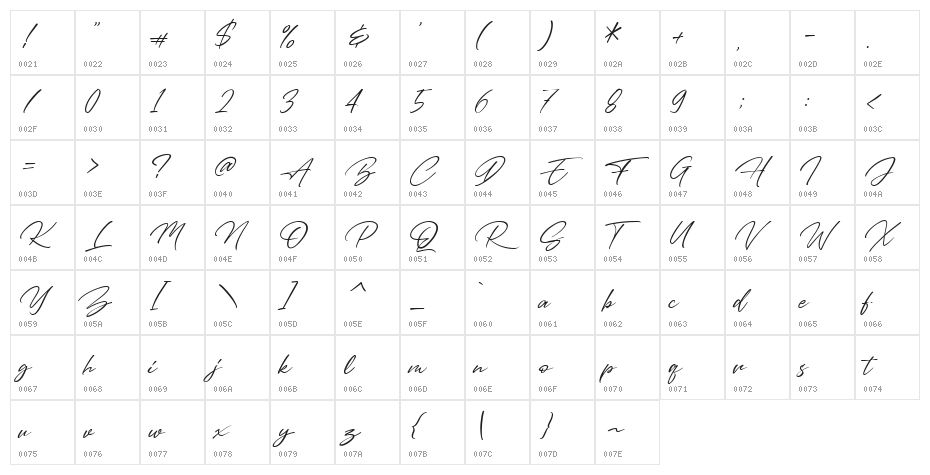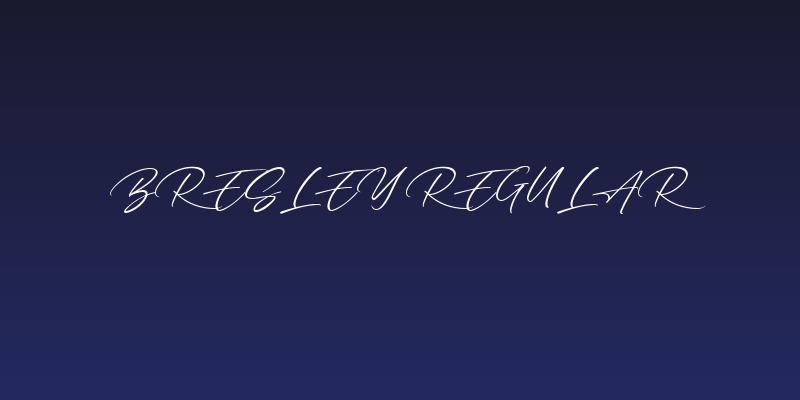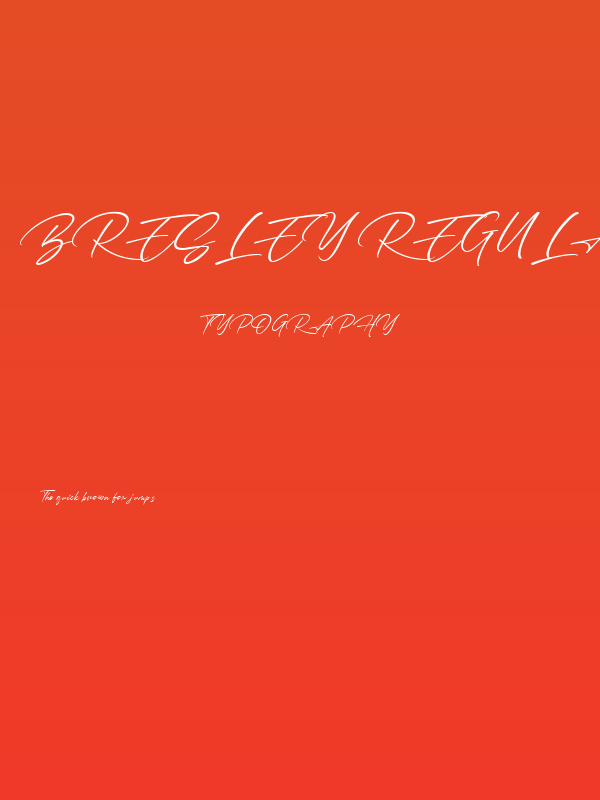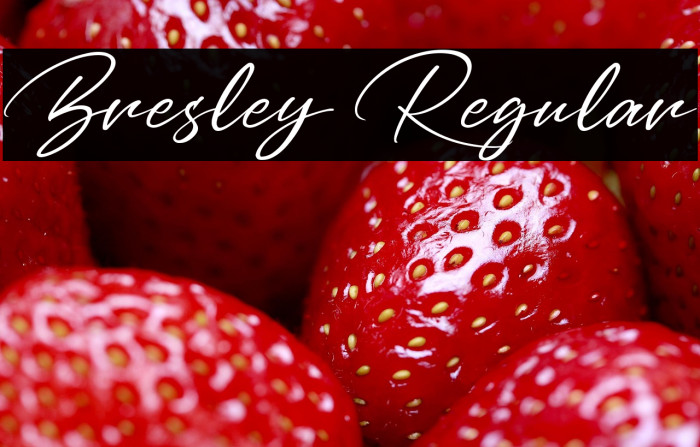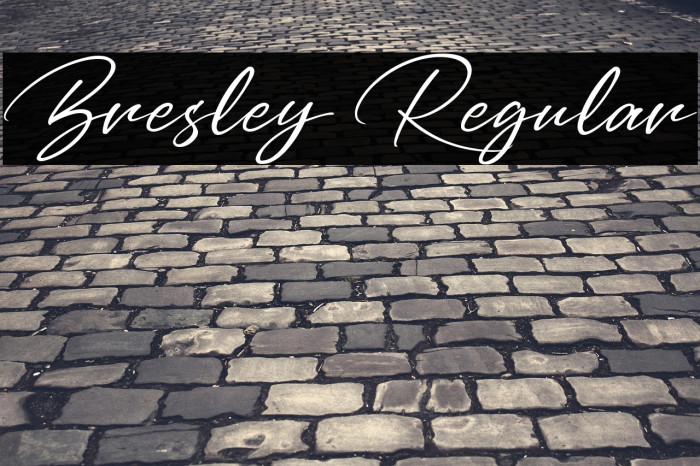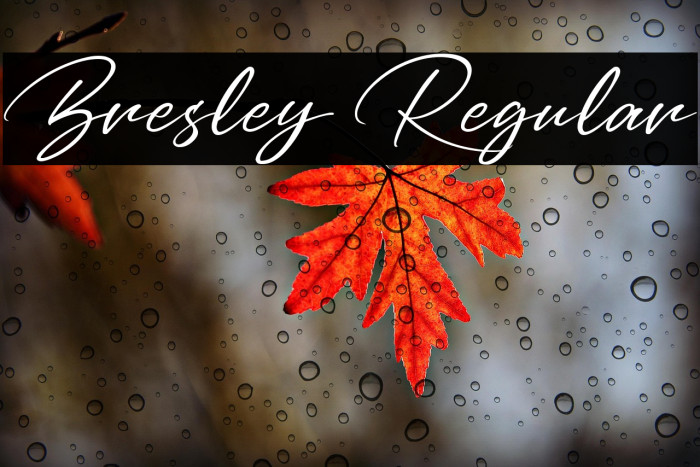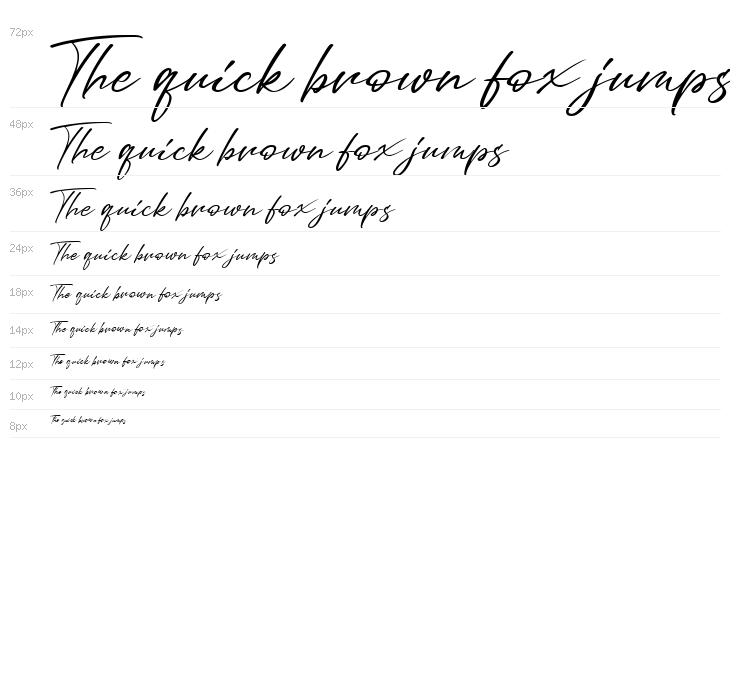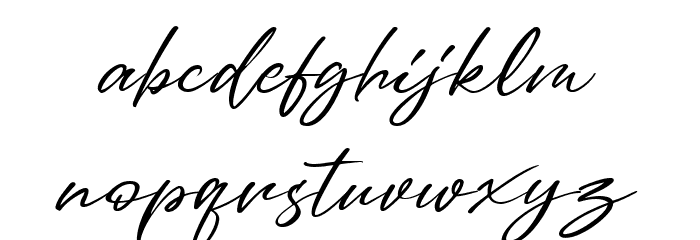
Bresley Regular Font
Bresley Regular Description
This font exhibits a flowing, cursive style with elegant, sweeping strokes that convey a sense of sophistication and fluidity. The characters are connected, mimicking the natural movement of handwriting, which adds a personal and artistic touch. The uppercase letters are slightly more elaborate, with extended flourishes, while the lowercase letters maintain a consistent, smooth flow. The numerals and special characters are designed to match the overall aesthetic, ensuring a cohesive look across all text. This font is ideal for projects that require a touch of elegance and creativity, such as invitations, branding, and artistic designs.
| Overall Style | Elegant, Artistic |
| Use Case | Invitations, Branding, Artistic designs |
| Proposed Projects | Ideal for wedding invitations, branding, artistic designs, and personal stationery. |